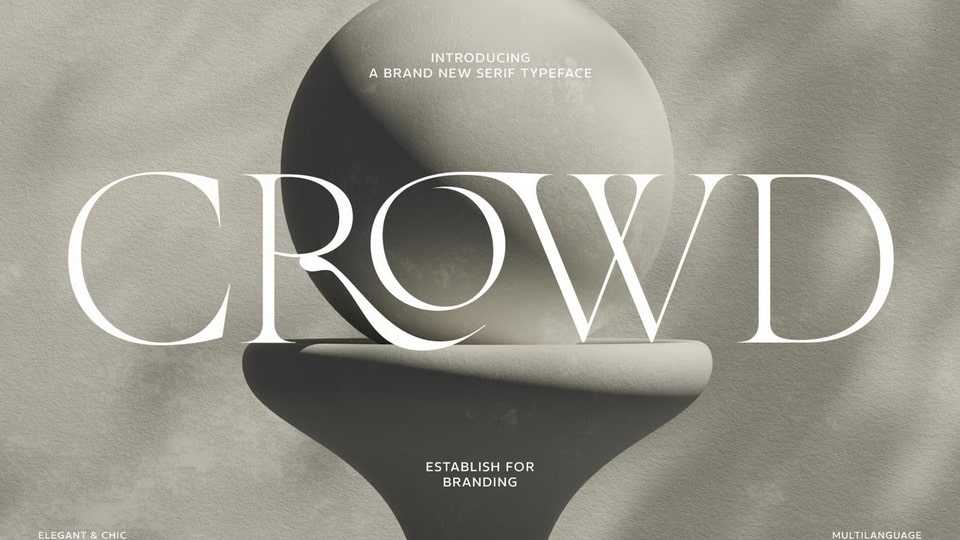
The More Crowd Font › Fontesk – Download Grátis
Download The More Crowd font, an editorial serif typeface, featuring an abundance of elegant ligatures. It’s exceptionally well-suited for design projects, particularly in branding, where sophistication and uniqueness are key.